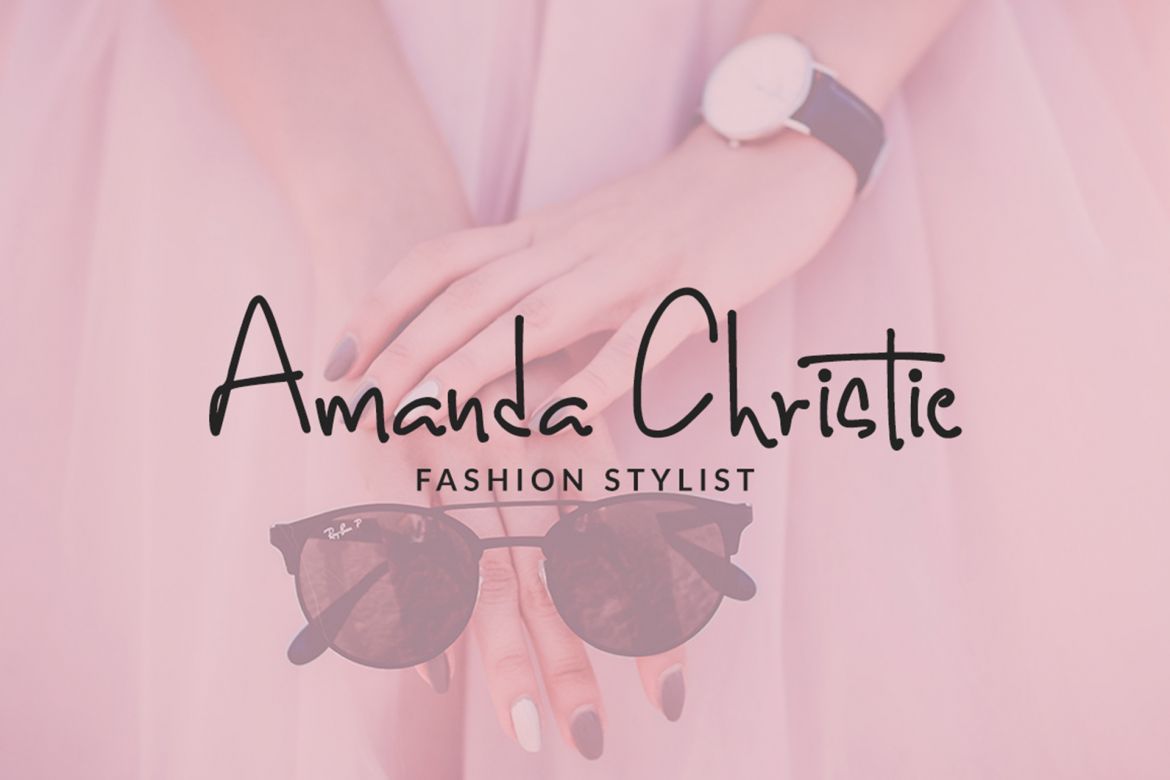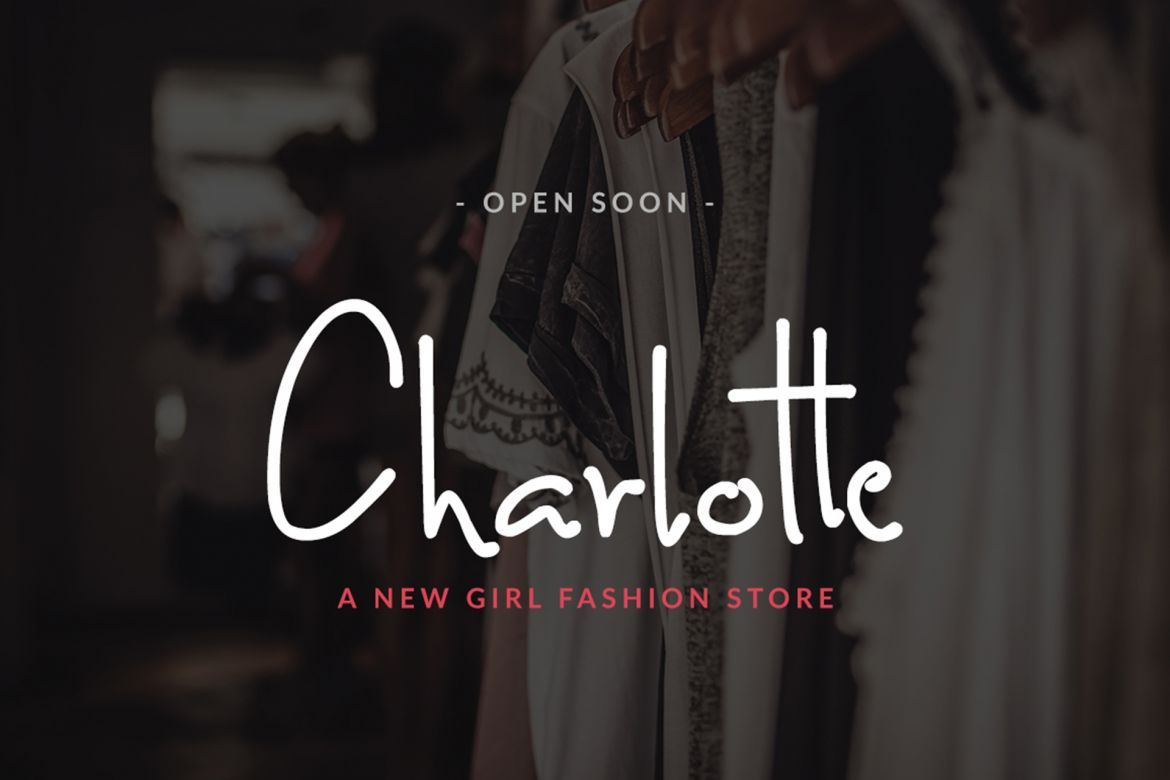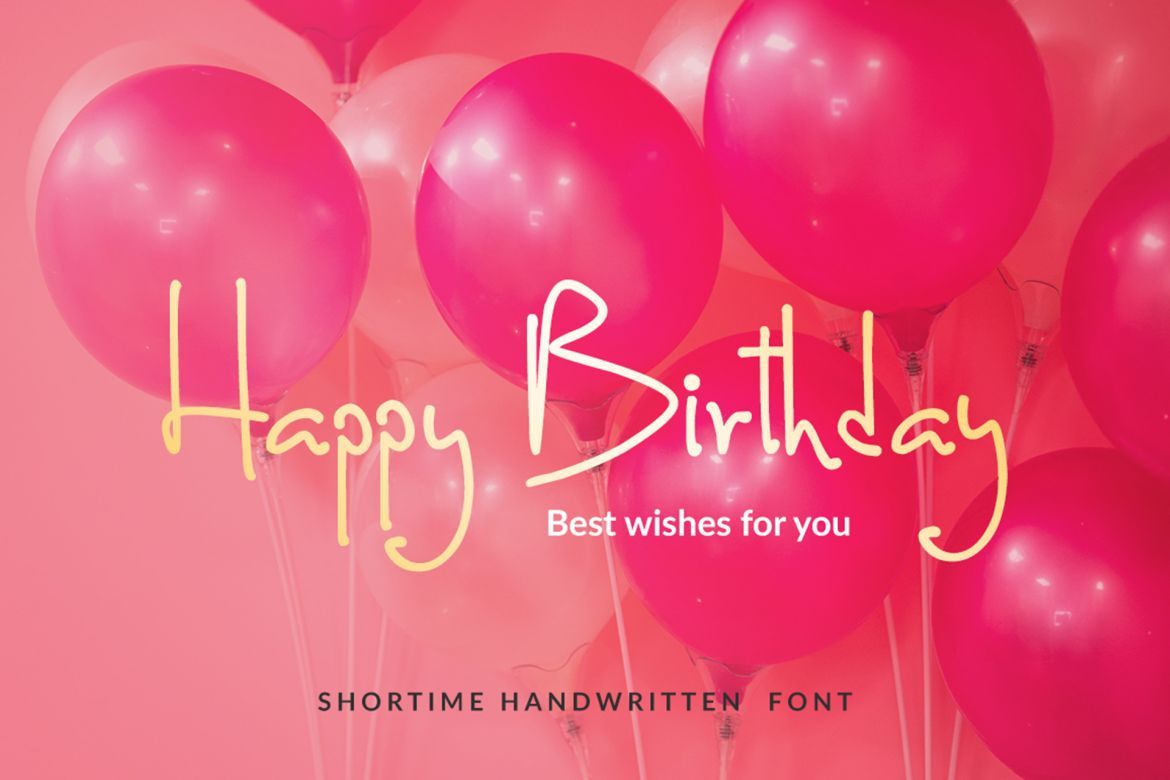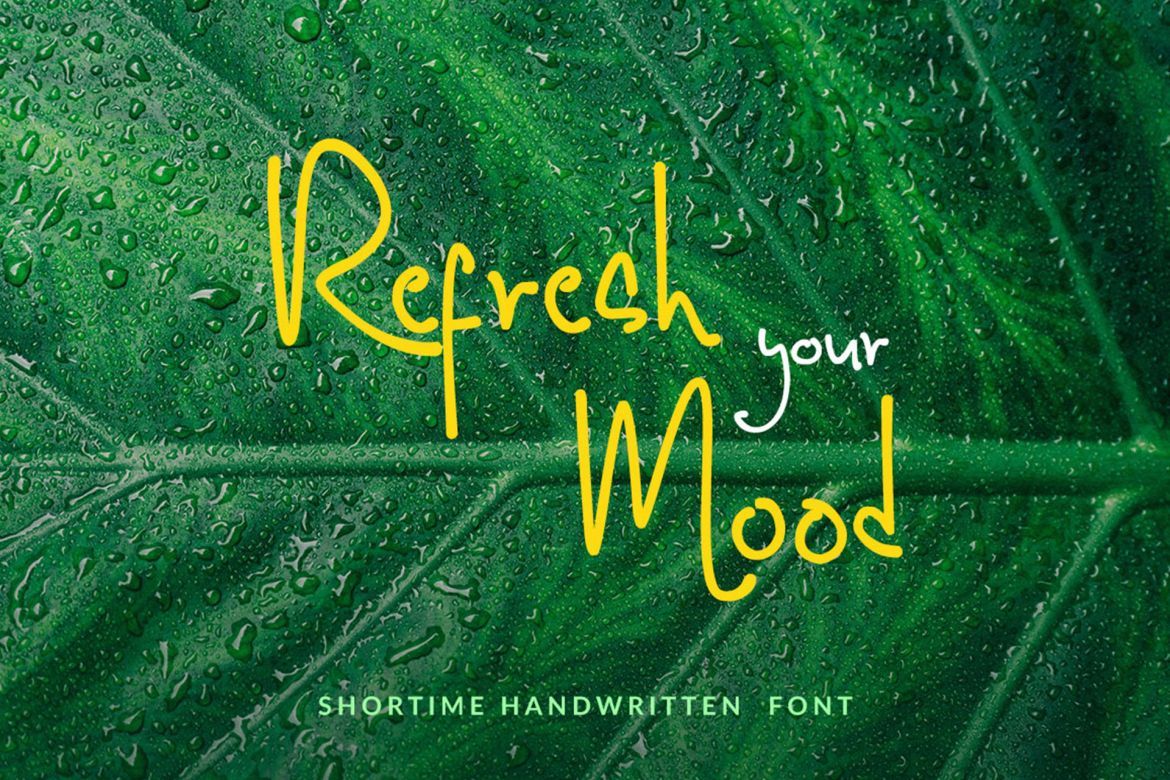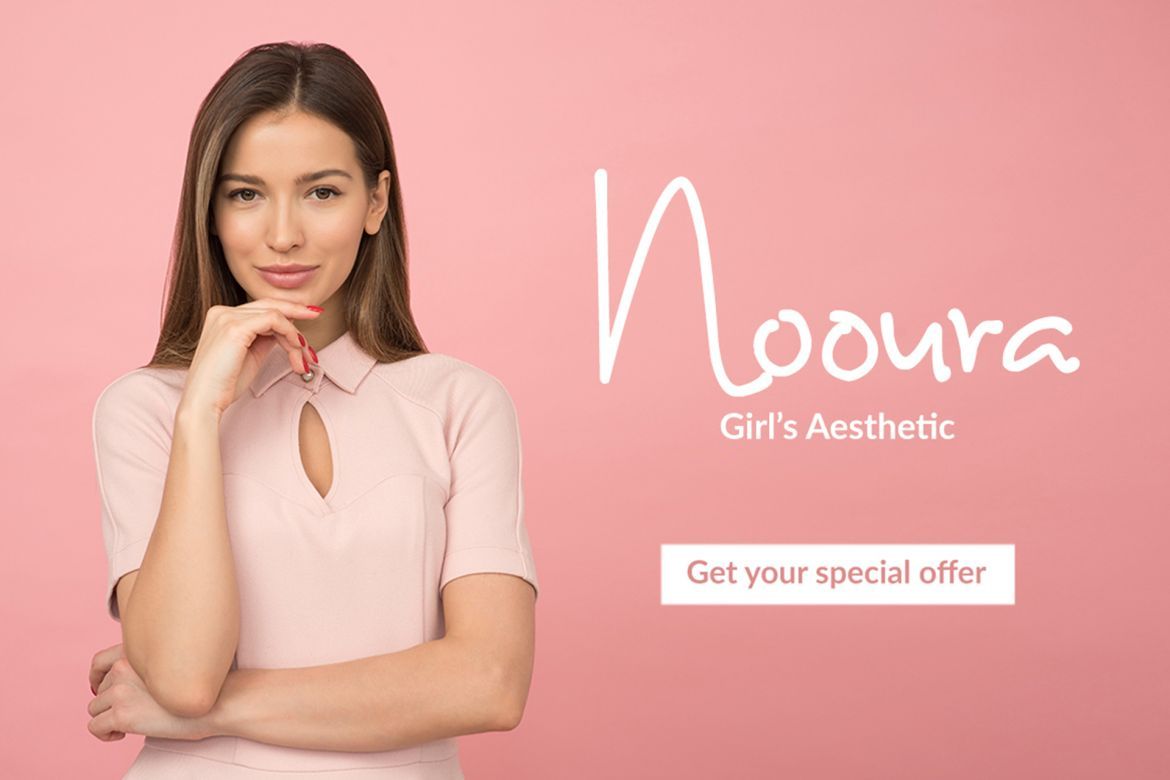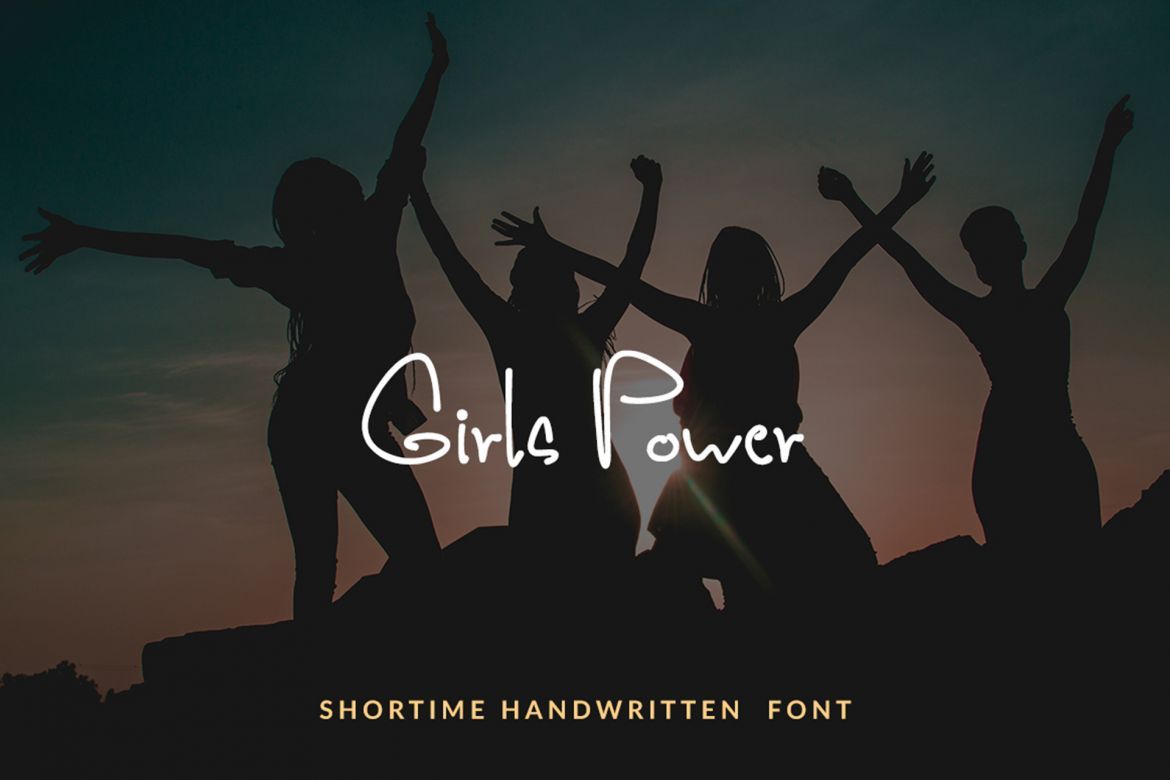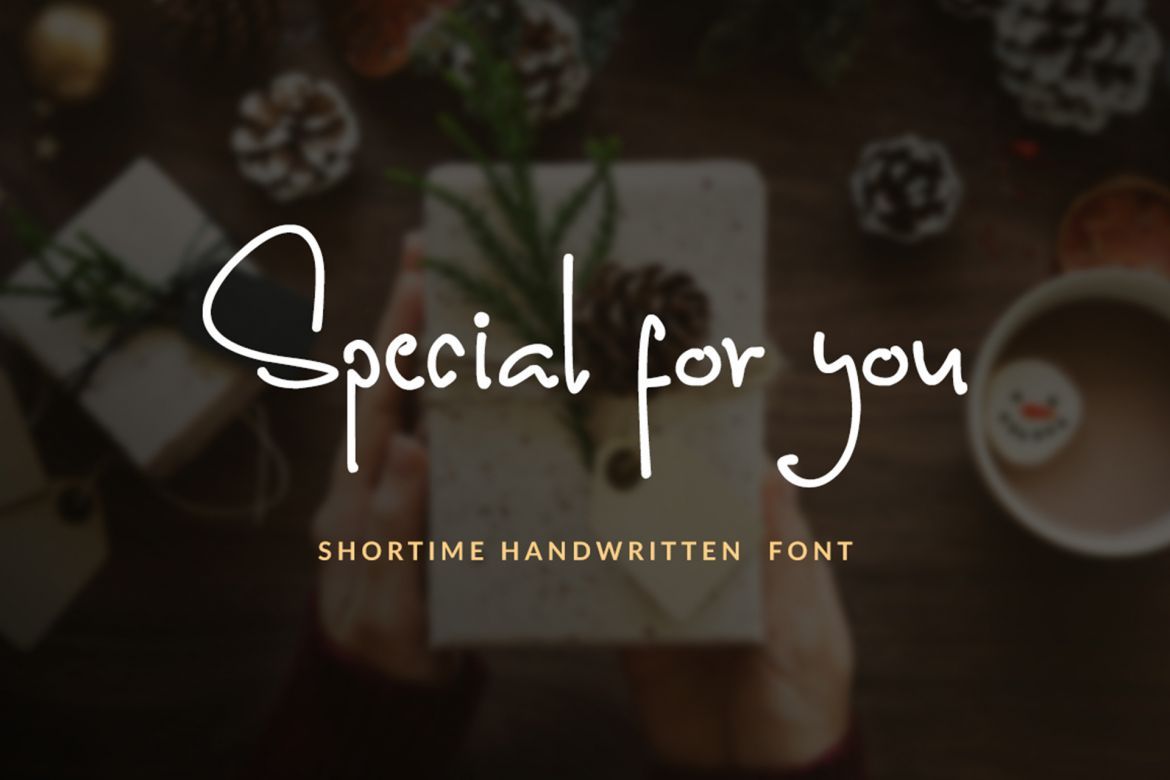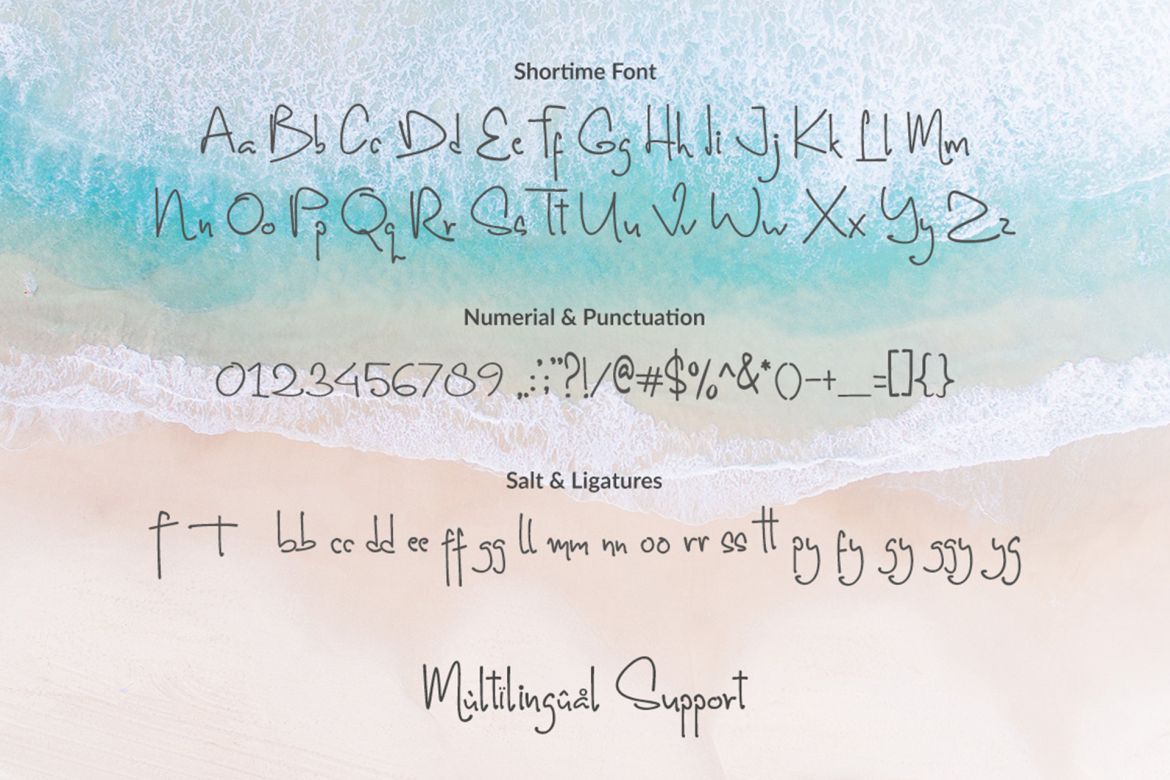
Shortime Handwritten Font
The Shortime is a simple handwritten font. Its natural handwritten style is perfect for invitations, quotes, thank you cards, greeting cards, logos, and much more!
• each font has stylish handwritten font,